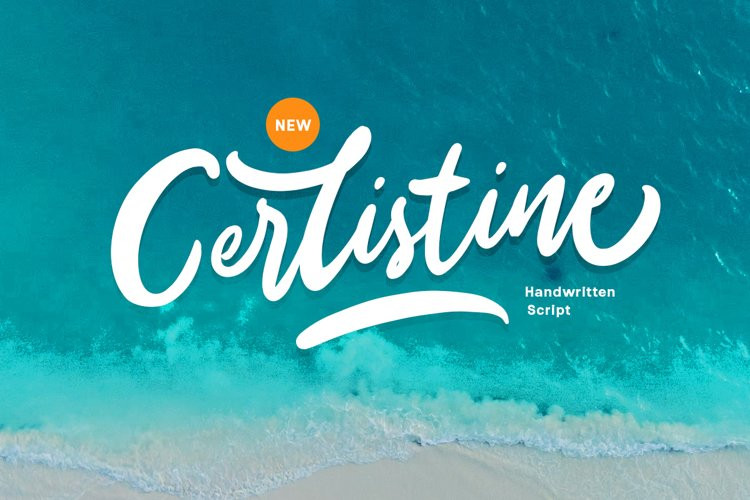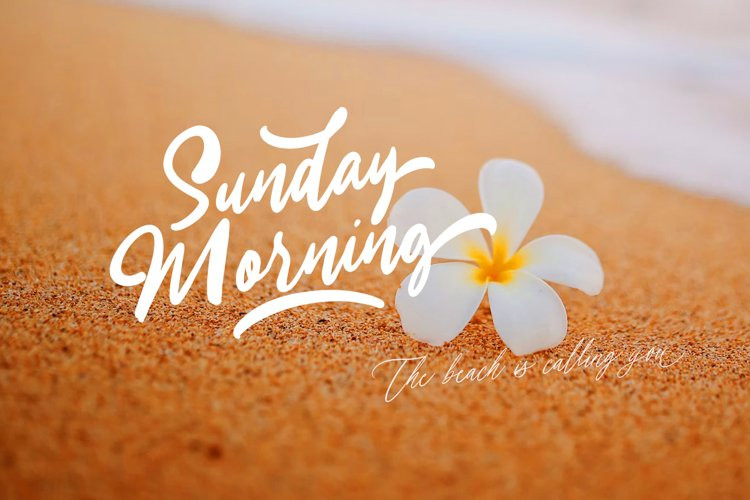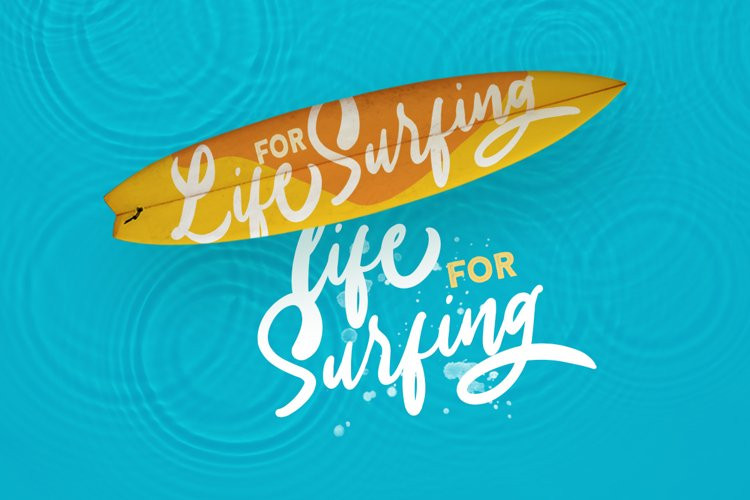
Cerlistine Font
CerlistineCerlestine is a standout bold script with modern look and feel. This type of font perfectly made to be applied especially in logo, headline, signage and the other various formal forms such as invitations, labels, logos, magazines, books, greeting / wedding cards, packaging, fashion, make up, stationery, novels, labels or any type of advertising purpose.